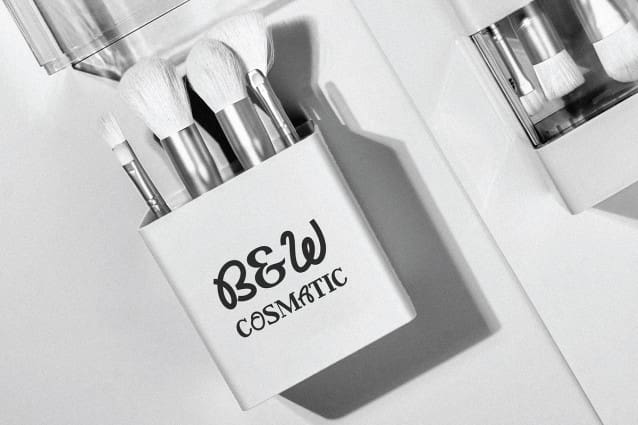
Dextor Font
Dextor Font – a font innovation that marries the elegance of serifs in lowercase with the boldness of display script in uppercase. Designed to inspire and make a statement, DEXTOR embodies the essence of boundless creativity.
Key Features:
Multilingual Support: With extensive language support, DEXTOR allows you to express yourself in multiple languages, breaking down geographical barriers and expanding your creative horizons.
Versatile Usage: Whether you’re a designer, business owner, or creative individual, DEXTOR serves as the perfect canvas for crafting compelling and characterful brand identities. Utilize it for branding, promotional materials, and beyond – the only limit is your imagination.
Why Choose DEXTOR:
Distinctive Identity: Stand out from the crowd with a font that exudes uniqueness and creativity, setting your projects apart from the ordinary.
Professional Quality: Crafted with precision and attention to detail, DEXTOR Font  ensures high-quality results that meet the standards of professional designers and businesses alike.
Limitless Creativity: Let your creativity soar with DEXTOR as your creative companion, empowering you to explore new possibilities and push the boundaries of design.
Unlock the potential of your projects with DEXTOR Font and let your creations speak with unforgettable style!